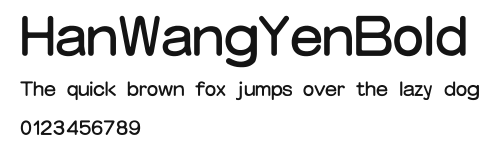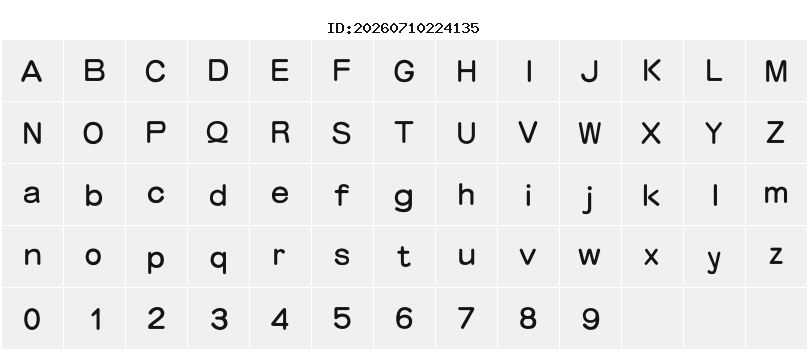
HanWangYenBold Preview
• Font Name: HanWangYenBold
• Font ID: HanWangYenBold
• Full Font Name: HanWangYenBold
• Version: HtWang Fonts(1), March 8, 2002; 1.00, initial release
• PostScript Name: HanWangYenBold
• Character Count: 13969
About HanWangYenBold.ttf
HanWangYenBold.ttf is a modern, elegant sans-serif font designed for ultimate readability and visual harmony. Perfect for branding, headlines, web design, and print materials.